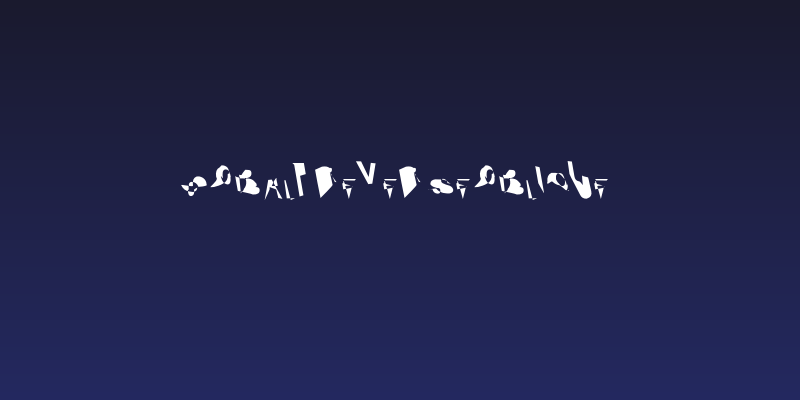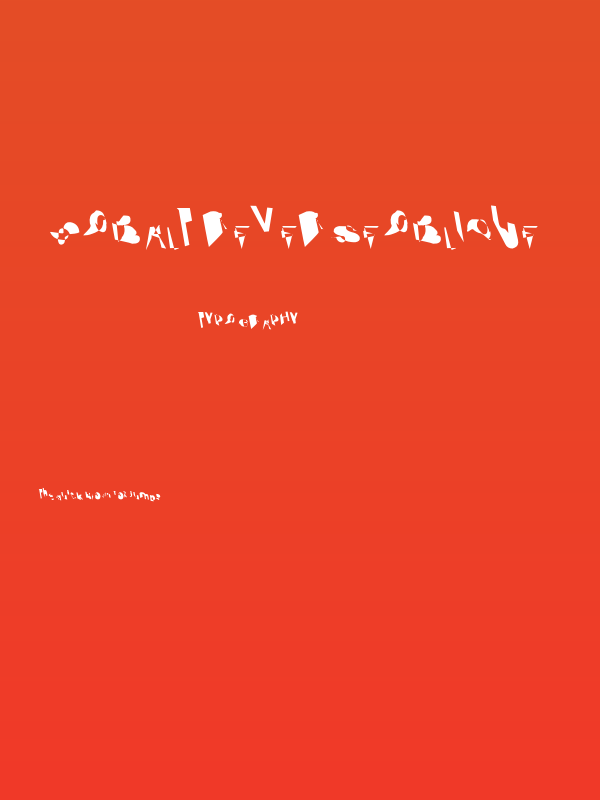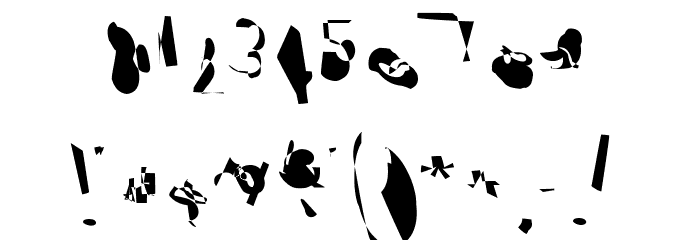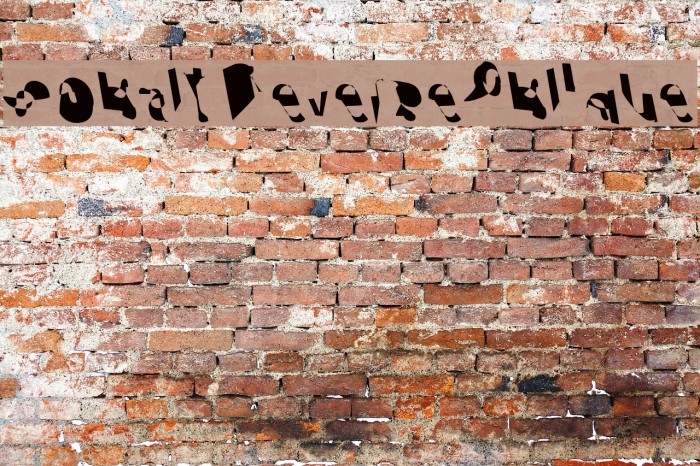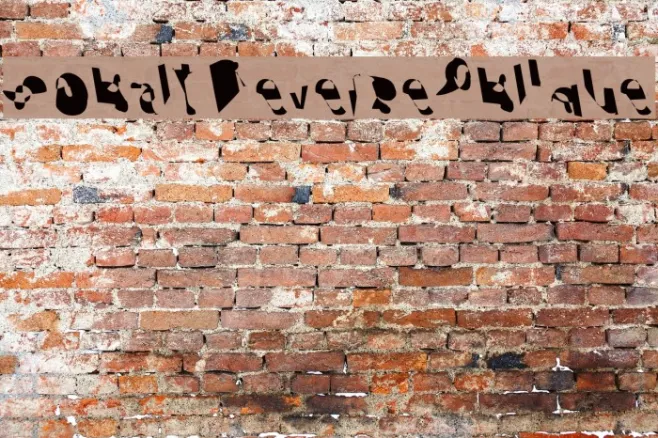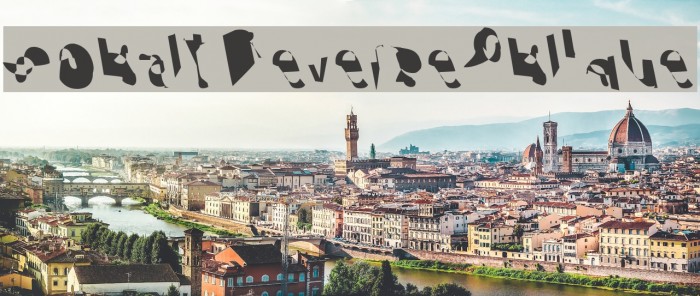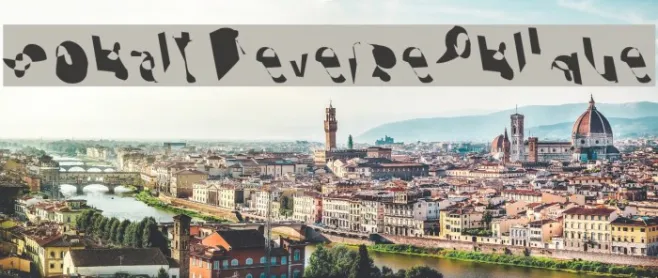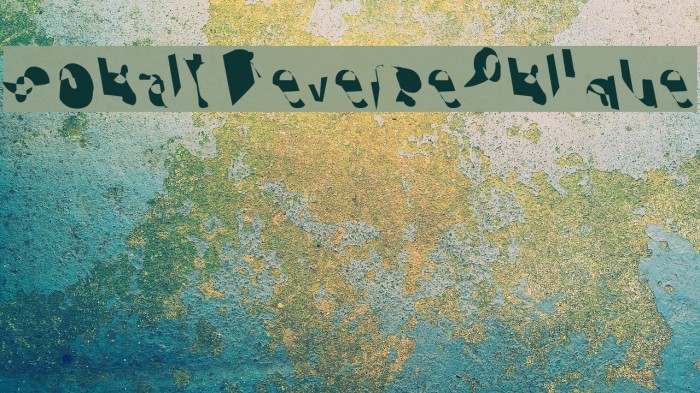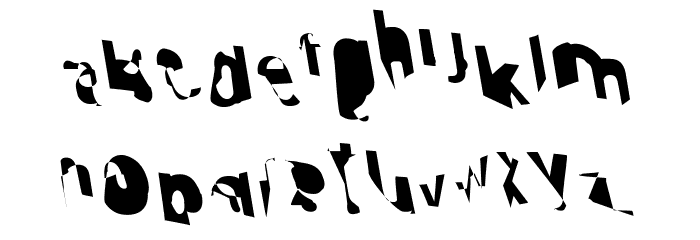
Cobalt ReverseOblique Font
Cobalt ReverseOblique Description
This font features a highly abstract and fragmented design, with each character appearing as if it has been shattered or distorted. The letters are bold and irregular, with sharp angles and varying thicknesses that create a dynamic, chaotic appearance. The uppercase and lowercase letters maintain this fragmented style, making it a unique choice for artistic and unconventional projects. Numbers and special characters follow the same design principles, ensuring consistency across all glyphs. The font's overall aesthetic is avant-garde and experimental, suitable for projects that aim to stand out and make a bold statement.
| Overall Style | Modern, Avant-garde |
| Use Case | Logos, Posters, Artistic projects |
| Proposed Projects | Ideal for experimental art projects, edgy branding, album covers, and modern posters. |